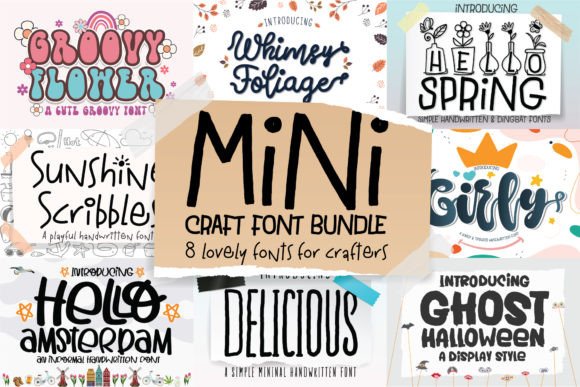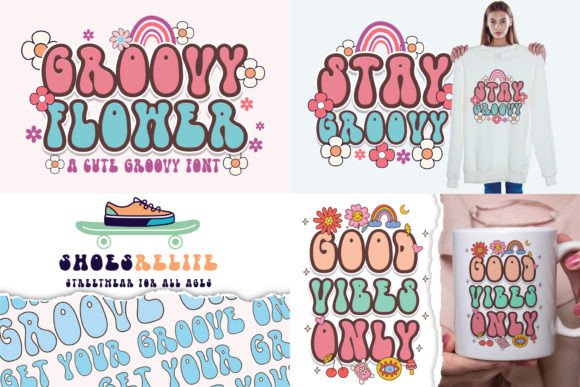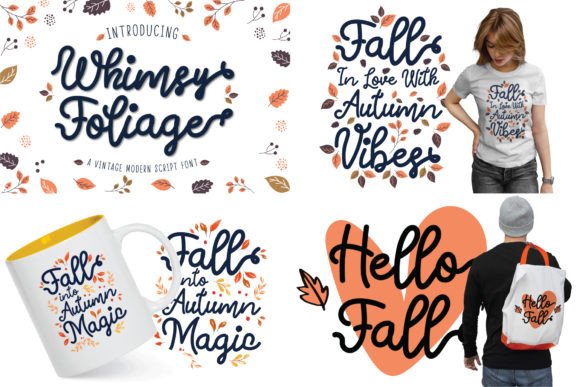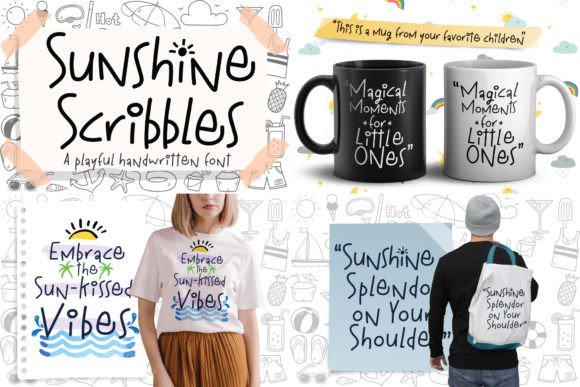
Mini Craft Bundle Font
About the Mini Craft Bundle Font
Crafted with precision, the Mini Craft Bundle Font is ready to bring your ideas to life. Mini Craft Font Bundle is a collection of lovely, simple, and minimal hand-written fonts. Elevate your projects with the charm of personal craftsmanship. Perfect for invitations, branding, and quotes, these versatile fonts bring an intimate, hand-crafted touch to your designs.
This collection excels in projects requiring a touch of handmade charm—ideal for branding materials like logos and short taglines, wedding invitations, or short quotes on social media. Its minimal nature makes it suitable for packaging design, especially for smaller items or artisanal products. However, avoid using it for large blocks of text or body copy; the handwritten style is less legible at smaller sizes.
The Mini Craft Bundle’s personality is friendly and approachable, yet sophisticated. It evokes a sense of handcrafted quality and personal attention to detail. Pairing it with a clean sans-serif like Open Sans for body text or a geometric sans-serif like Montserrat for headlines would create a balanced contrast.
For a more playful feel, consider pairing it with a complementary script font. Alternatively, a subtle serif like Lora could add a touch of classic elegance without overpowering the hand-drawn feel of the Mini Craft fonts.
Mini Craft Bundle Font Example